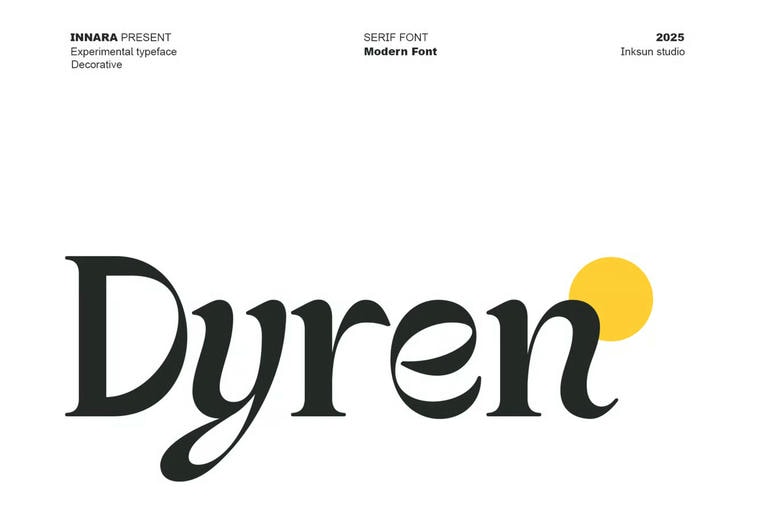
Dyren Font
Dyren Font – This is a category of an experimental and decorative font [Image]. Its main characteristic is its “serifs,” or little lines at the end of each character which give it a classic yet fashionable feel.
Strong Line Contrast: The difference in thickness between the thick vertical lines and the thinner horizontal or curved lines is intense. This is one of the typical features of Modern Serif.
Organic and Curved Shapes: The letters, particularly the y, r, and n are flowing and graceful in their curves that serve as an artistic and classy feel.
Visual Accent: The detail of the decorative feature is a circle with the color of yellow behind the letter n, which means that this font is perfectly appropriate to display or brand.
Dyren Serif Font